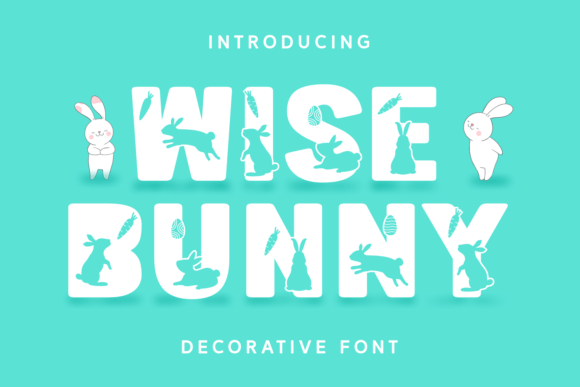
Step into a whimsical world where letters transform into adorable bunnies and carrots with Wise Bunny Font, a decorative typeface brimming with charm and playfulness. This delightful font family, crafted lovingly by Jasa (7NTypes), is the perfect companion for any project seeking a touch of sweetness and whimsy.
Wise Bunny is not just a font; it's an invitation to let your imagination run wild. Picture the vibrant hues of Easter egg hunts, the joyful laughter of children, and the sweet aroma of carrot cake, all encapsulated within each letterform. This font family is a celebration of life's simple joys, bringing a smile to your face with every word you type.
Whether you're designing Easter-themed greetings, creating enchanting children's books, or simply adding a dash of cheer to your everyday projects, Wise Bunny is your go-to choice. Its PUA encoding ensures effortless access to all glyphs and swashes, making it a versatile tool for any creative endeavor.
So, set your creativity free and let Wise Bunny hop its way into your heart. Embrace the magic of this enchanting font family and watch your designs blossom with joy and charm. With Wise Bunny by your side, every project becomes a delightful adventure, filled with imagination and endless possibilities.